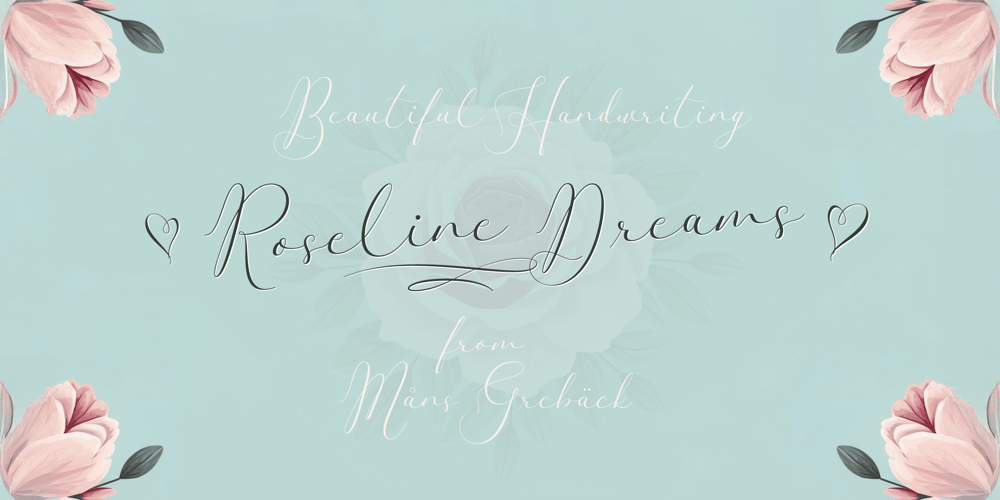
Roseline Dreams Font Family was designed by Måns Grebäck and published by Mans Greback. Roseline Dreams contains 4 styles and family package options. Roseline Dreams is an elegant and delicate handwritten script. With thin, graceful strokes, it evokes a sense of feminine beauty and sophistication. Perfect for personal signatures or decorative projects, the swashy and flowing letterforms give the impression of effortless elegance. The font’s lightweight design and soft curves lend it a dream-like quality, making each word appear as if written with care and precision.The script feels intimate yet professional, offering a modern take on classic handwriting styles. Whether used for invitations, branding, or artistic designs, Roseline Dreams brings a refined, polished touch to any project.Use underscore _ anywhere in a word to make a swash. Example: Rose_lineUse multiple underscores for different swashes. Example: Hand_______writingThe font is built with advanced OpenType functionality and guaranteed top-notch quality, containing stylistic and contextual alternates, ligatures and more automatic and manual features; all to give you full control and customizability. It has extensive lingual support, covering all Latin-based languages, from North Europa to South Africa, from America to South-East Asia. It contains all characters and symbols you’ll ever need, including all punctuation and numbers. Created by Mans Greback, known for crafting fonts that blend classic and contemporary aesthetics, Roseline Dreams reflects his attention to detail and design mastery.